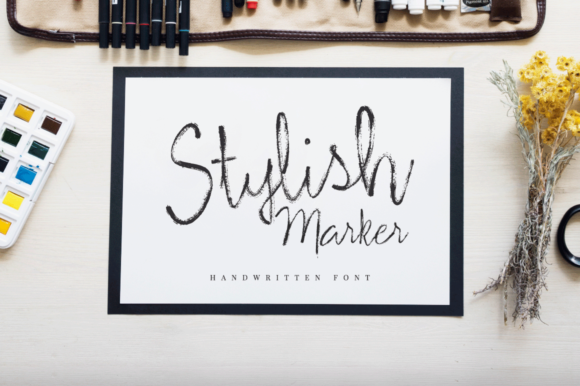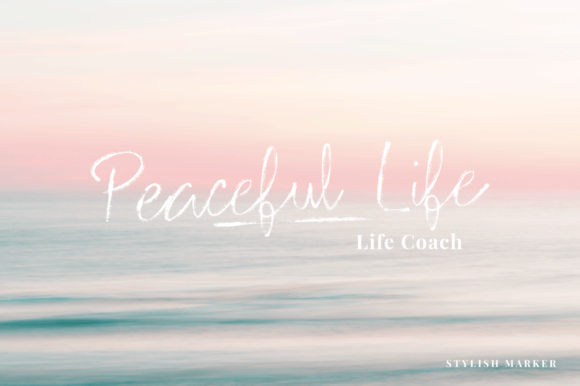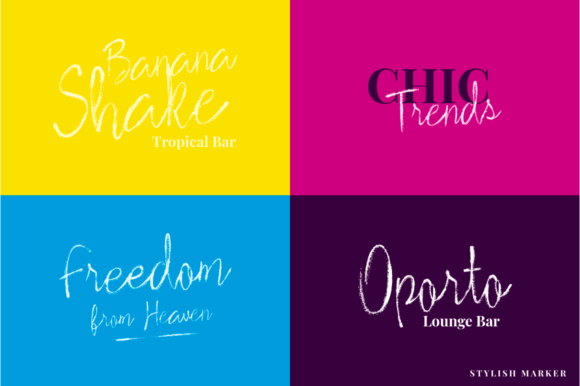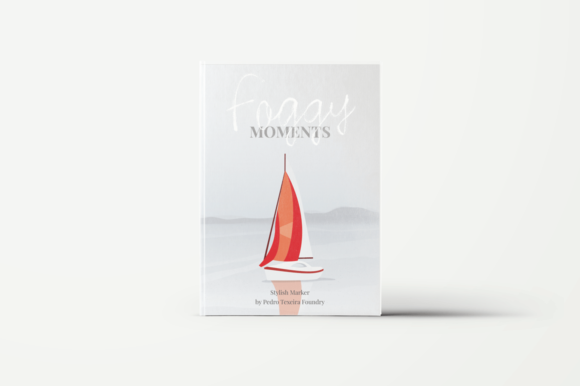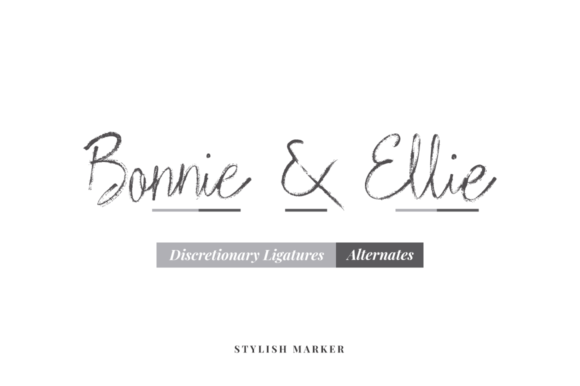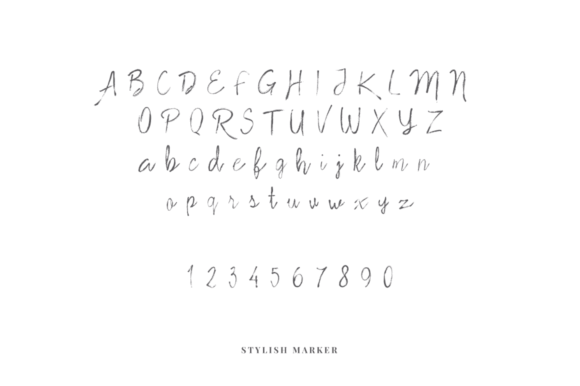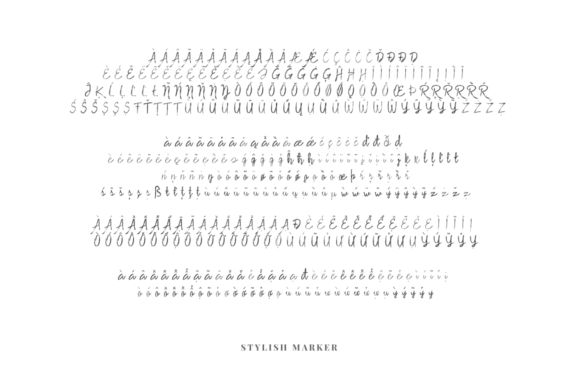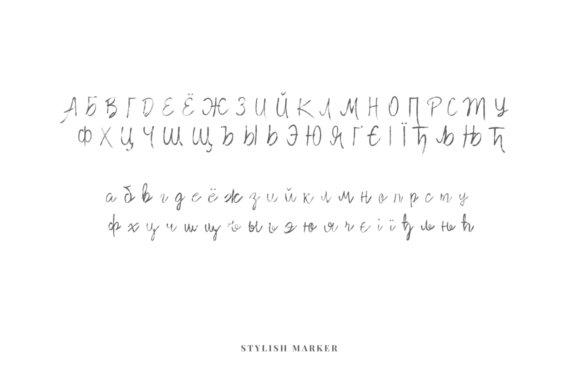
Stylish Marker Font
About Stylish Marker Font
Based on a worn out marker, Stylish Marker is a unique handwritten font. Use it to add an authentic layer to any design project.